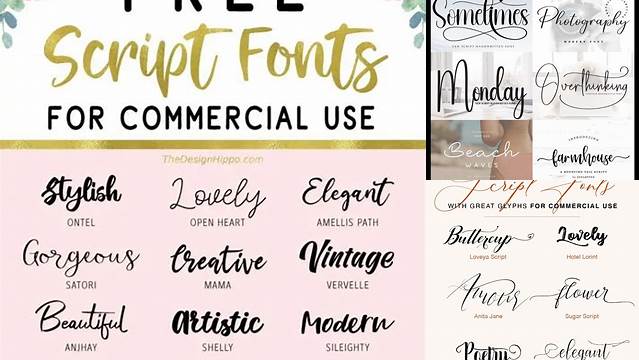
Free Script Fonts For Commercial Use: Your Ultimate Guide
Hey there, design enthusiasts and entrepreneurs! Are you on the hunt for the perfect script font that's both beautiful and free for commercial use? Well, you've come to the right place! In this comprehensive guide, we'll dive deep into the world of script fonts, exploring the best options available, understanding the licensing nuances, and providing you with tips on how to use these elegant typefaces effectively in your projects. Let's get started, shall we?
Unveiling the Allure of Script Fonts
First things first, why are script fonts so incredibly popular? What is it about these fonts that captivates designers and audiences alike? Script fonts, with their graceful strokes and flowing lines, often mimic handwriting, adding a touch of elegance, personality, and sophistication to any design. They can evoke a sense of nostalgia, romance, or even a touch of whimsy, depending on the style. Think of them as the handwritten signature of your brand, a way to make a statement and stand out from the crowd. From wedding invitations and logos to websites and social media graphics, script fonts can instantly elevate the visual appeal of your projects. They can be used to convey a sense of luxury, creativity, or approachability, making them incredibly versatile. The beauty of script fonts lies in their ability to add a human touch, making your designs feel more personal and engaging. It's like adding a personal touch to a digital world. The variety within the script font category is also a key factor in their popularity. You'll find everything from classic, formal scripts to modern, playful styles. This diversity allows designers to find the perfect font to match the tone and style of their project. Whether you're aiming for a vintage vibe, a contemporary look, or something in between, there's a script font out there for you. The subtle details like the way the letters connect, the thickness of the strokes, and the overall slant can completely change the feel of a font. Script fonts can dramatically alter the feel of a design. The right script font can make a design feel more polished, artistic, and memorable. They can create a strong visual impact, helping to capture attention and convey your message effectively. The key is to choose the right script font for the job. Selecting the right script font can significantly impact your design's effectiveness and how your audience perceives it. Choosing the right font isn't just about aesthetics; it's about communicating the right message and creating a lasting impression.
Tips for Using Script Fonts Effectively
Alright, you've found some amazing script fonts. Now, how do you use them effectively to make your designs pop? Here are some tips to help you. Firstly, use script fonts sparingly. Don't overdo it! They're best used for headlines, titles, or short phrases. Overusing a script font can make your design look cluttered and difficult to read. Think of the script font as a special effect; it's most impactful when used strategically. Secondly, pair your script font with a complementary font. A good rule of thumb is to pair a script font with a clean, simple sans-serif font or a classic serif font. This creates a nice visual contrast and makes your design more readable. For example, you could use a script font for your logo and a sans-serif font for your body text. This pairing will enhance readability. Thirdly, pay attention to kerning and spacing. Script fonts can sometimes have tight kerning, meaning the letters are too close together. Adjust the kerning and letter spacing to ensure your text is easy to read and the font looks its best. Kerning is the space between individual letters, and letter spacing adjusts the space between all letters in a word or phrase. Fourthly, consider the context of your design. Not all script fonts are created equal. Some are more formal, while others are more playful. Choose a script font that matches the tone and style of your project. For a wedding invitation, a classic script font would be perfect. For a children's book, a more whimsical script font might be better. Finally, test your design on different devices and in different formats. Make sure your script font looks good on all screen sizes and in both print and digital formats. Keep in mind that the readability of a script font can vary depending on the size, color, and background. Try different font sizes and colors to make sure the font is easily legible. Using these tips will help you elevate your designs!
Avoiding Common Mistakes with Script Fonts
While script fonts can enhance your designs, there are some common pitfalls to avoid. One major mistake is using a script font for long blocks of text. Script fonts can be difficult to read at smaller sizes, so it's best to reserve them for headlines and short phrases. Long paragraphs are often much easier to read when done in sans-serif or serif fonts. Another mistake is choosing a script font that's overly complex or difficult to read. Make sure your chosen font is legible, especially if your audience will be viewing your design on a small screen or in a printed format. Test the font at various sizes to ensure readability. Thirdly, don't overuse script fonts in a single design. Too much script can be overwhelming and make your design look cluttered. Use script fonts strategically to create emphasis and visual interest, and don't go overboard. Next, avoid using script fonts that are low-quality or poorly designed. Look for fonts that are well-crafted and have a professional appearance. A poorly designed font can make your entire design look unprofessional. Before you commit to a font, download it and try it out in your design mockups. Finally, make sure you have the correct licenses for all fonts you use. Always check the license information and ensure you are using the font in compliance with the terms of the license. Following these tips will help you avoid common mistakes and ensure your designs look polished and professional. Taking a thoughtful approach to your font choices will dramatically improve your design.
Conclusion: Embrace the Elegance
So, there you have it, guys! A comprehensive guide to script fonts, free for commercial use. We've covered everything from the beauty of script fonts and how to find them, to how to use them effectively and avoid common mistakes. Script fonts are a fantastic way to add personality and flair to your designs. By following these tips and carefully selecting the right font for your project, you can create stunning visuals that capture attention and leave a lasting impression. Now go forth and create some amazing designs! Remember to always double-check the license, choose a font that fits your brand, and use it sparingly. Have fun and let your creativity flow! Happy designing!